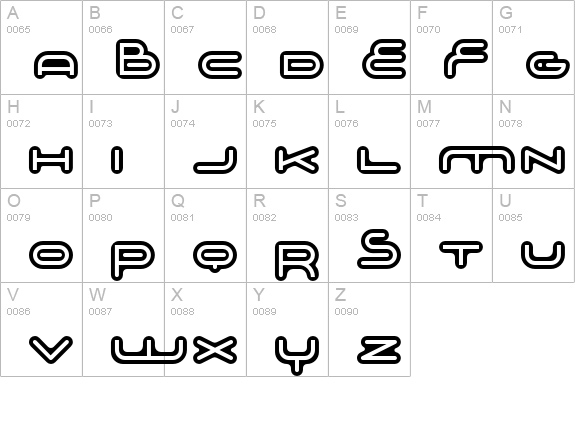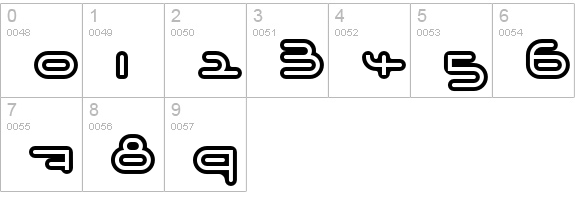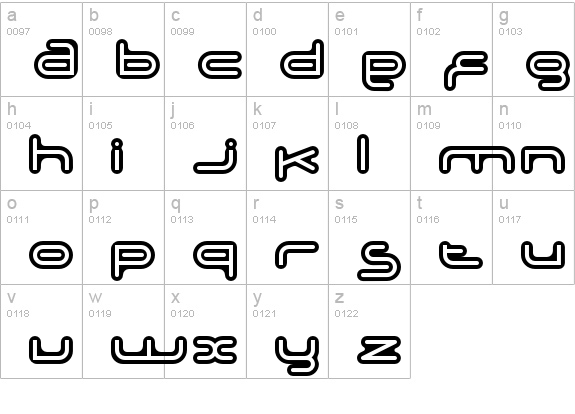
Adrenalin-BubbleOutline Font Details
Adrenalin-BubbleOutline font is a dynamic and energetic typeface that exudes a sense of excitement and thrill. Its bold and edgy design makes it perfect for capturing attention in various creative projects. The playful bubble outline adds a touch of fun and whimsy to any text or design element. Best of all, Adrenalin-BubbleOutline font is available for free download at FontsMarket.com. This means you can easily access and use this eye-catching font in your projects without any cost. Whether you're designing posters, flyers, logos, or social media graphics, Adrenalin-BubbleOutline font is sure to make a bold statement and leave a lasting impression. Don't miss out on this fantastic opportunity to enhance your designs with this unique and exciting font!